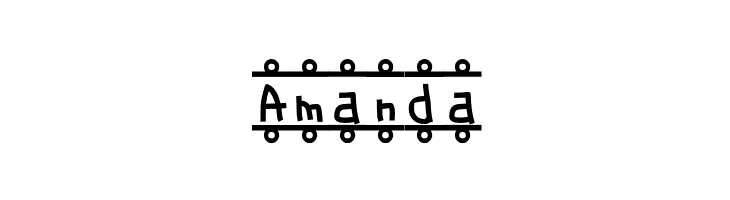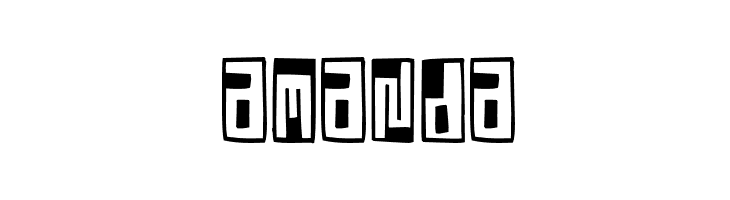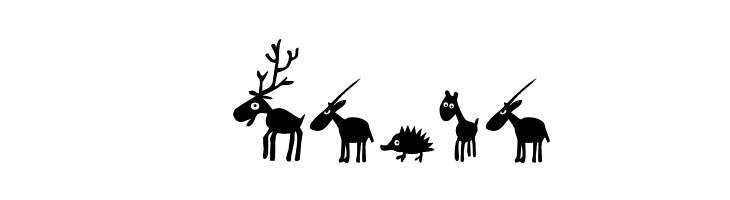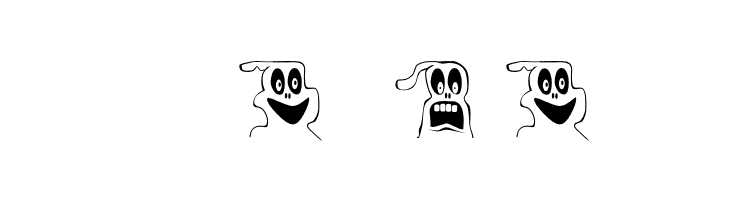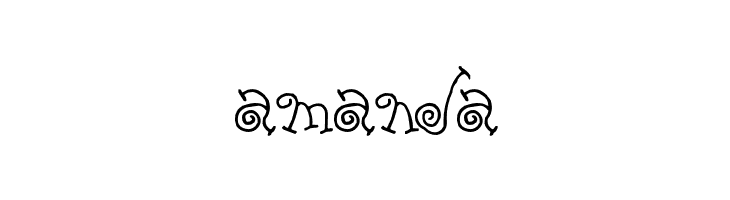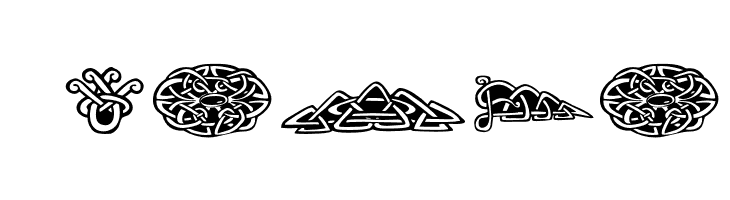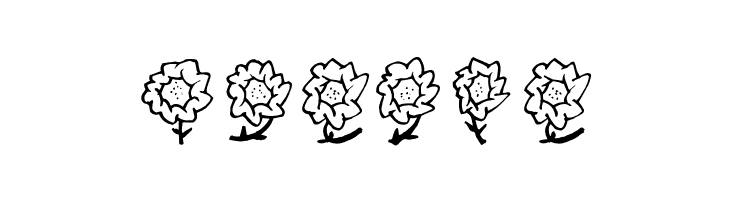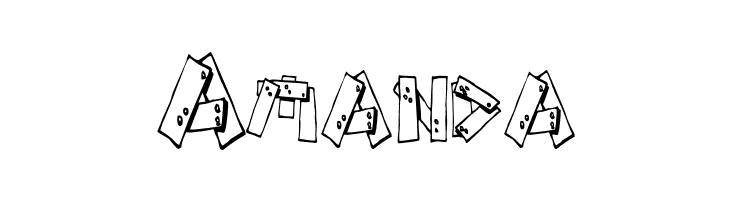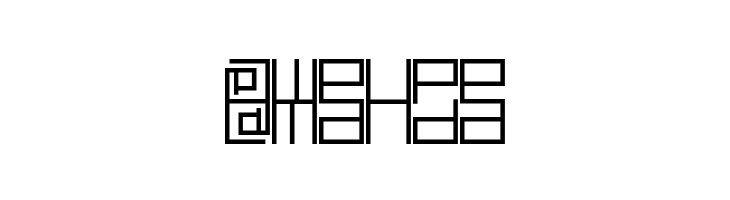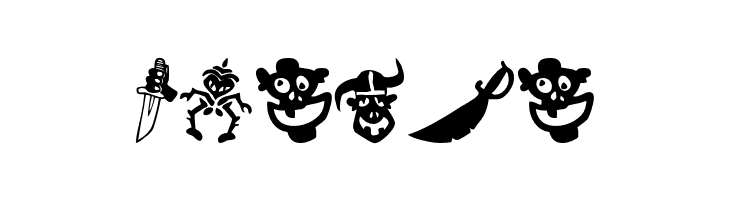
TPF Yolk Bold Font
Font Environment - www.fontenvironment.com/
A whimsical, curly font with bold strokes and decorative elements.
FE-Yolk Font
Font by Font Environment - fontenvironment.com
A whimsical and playful font with spiral motifs and decorative swirls.
FE-WinPets2 Font
Font by Font Environment - fontenvironment.com
Cartoon animal pictogram font with bold, playful silhouettes.
FE-WinPets1 Font
Font by Font Environment - fontenvironment.com
Whimsical cartoon animal dingbat font.
FESongABC Font
Font by Font Environment - fontenvironment.com
A bold, decorative font with a playful and vintage-inspired style.
FE-Comixx Font
Font by Font Environment - fontenvironment.com
A bold, energetic comic book style font with exaggerated, playful characters.
FE-BoxFont Font
Font by Font Environment - fontenvironment.com
A bold, boxy font with geometric, rectangular frames around each character.
TPF Yolk Font
Font Environment - www.fontenvironment.com/
A whimsical, curly font with playful swirls and loops, perfect for creative projects.
FE-FingerprintsInside Font
Font by Font Environment - fontenvironment.com
A bold, fingerprint-themed font with a modern and artistic style.
FE-Ubiquitous Font
Font by Font Environment - fontenvironment.com
Playful animal illustrations form each character in a decorative, hand-drawn style.
FE-WinBugs Font
Font by Font Environment - fontenvironment.com
Bug-themed decorative font with each glyph resembling a different insect.
FE-BoxFontNegative Font
Font by Font Environment - fontenvironment.com
A bold, boxy font with characters formed by negative space within rectangles.
FE10LilGhosts Font
A series of playful ghost illustrations with unique expressions.
FEMajasFlowers Font
A playful and whimsical hand-drawn flower design with bold outlines.
FE-20Faces Font
Font by Font Environment - fontenvironment.com
Abstract, geometric face illustrations form each character.
FE-Dominoes Font
Font by Font Environment - fontenvironment.com
Bold sans-serif font mimicking domino tiles with integrated dot motifs.
TPF Yolk Light Font
Font Environment - www.fontenvironment.com/
A whimsical, curly font with playful, spiral embellishments.
FE-Banner Font
Font by Font Environment - fontenvironment.com
A playful, hand-drawn font with circular decorative elements.
FE-PolkaYourEyesOut Font
Font by Font Environment - fontenvironment.com